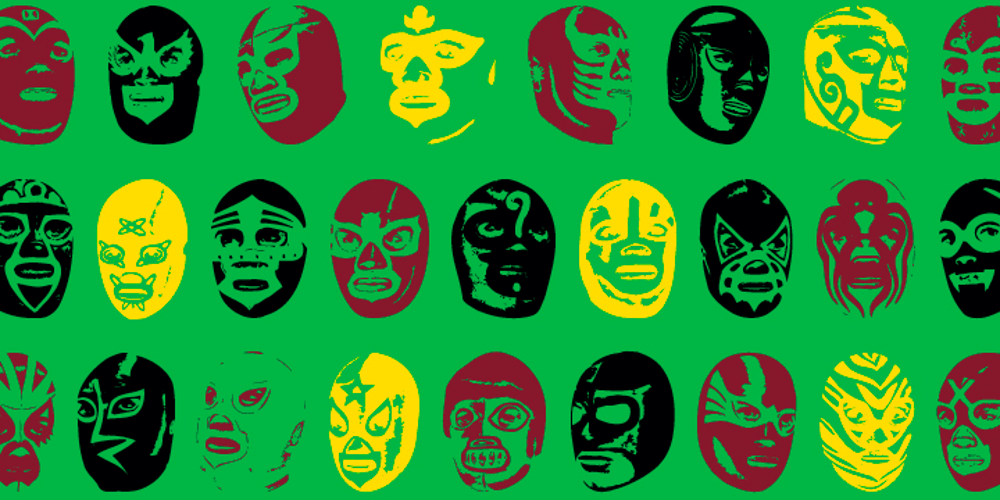
Dos De Tres Font Family was designed by Eduardo Escobar and published by Volcano Type. Dos De Tres contains 1 styles and family package options. This is an idea to reproduce the masks of the Mexican wrestlers of the late 60s and 70s. The typography is based in keeping the shape of the face in the wrestler’s masks.